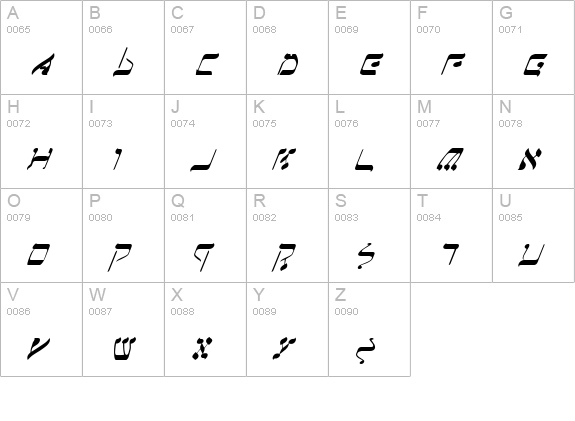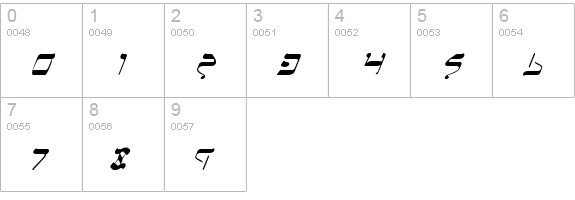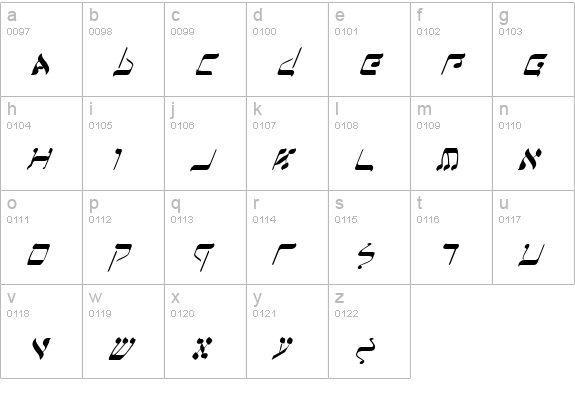
Jerusalem Italic Font Details
Jerusalem Italic is a distinctive, italic variant in the Jerusalem typeface family \xE2\x80\x94 well suited to design and typography projects.
Introducing Jerusalem Italic font, a stylish and elegant typeface that exudes sophistication and charm. With its sleek and modern design, Jerusalem Italic is perfect for adding a touch of sophistication to any project. The italicized style adds a sense of elegance and flair, making it ideal for use in branding, invitations, headlines, and more. One of the best things about Jerusalem Italic font is that it is completely free to download. You can easily access this stunning font at FontsMarket.com and enhance your designs with its unique and eye-catching appeal. Don't miss out on the opportunity to elevate your projects with the timeless beauty of Jerusalem Italic font. Download it today and let your creativity soar!